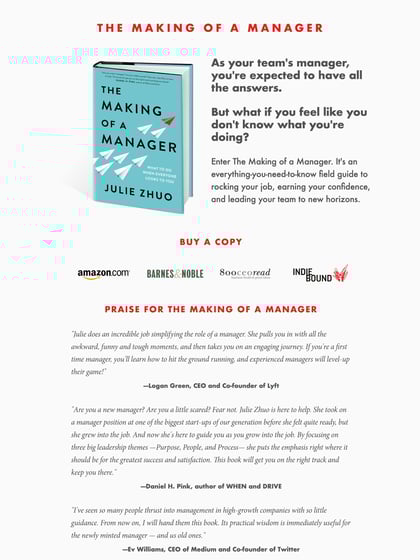
Minion typeface specimen
Minion
Minion is Robert Slimbach’s Renaissance-inspired serif family for Adobe, first released in 1990 and subsequently expanded through Pro and later generations. Small capitals, figure styles and optical-size options vary with the edition. The linked page documents Minion Pro and points to Minion 3 for the newer family.
Serif
Designer / foundry
Adobe Originals ↗